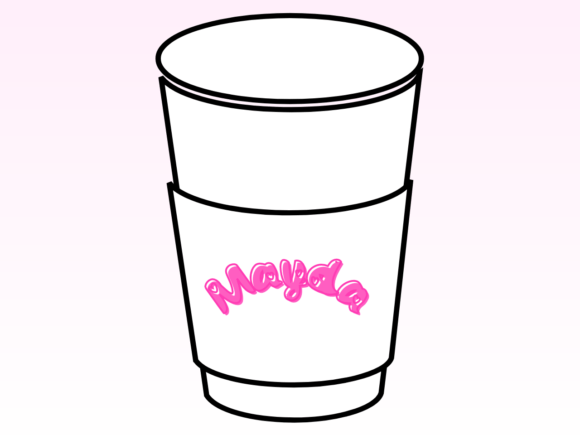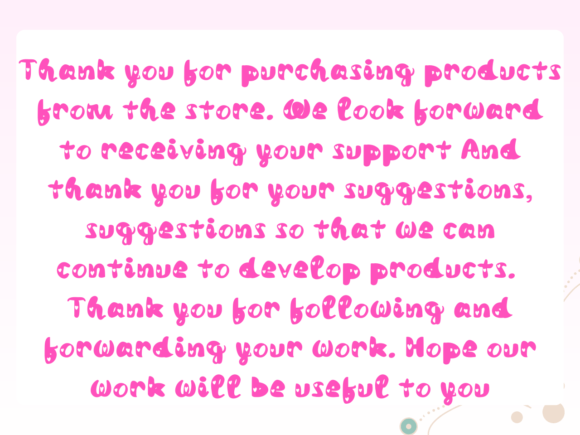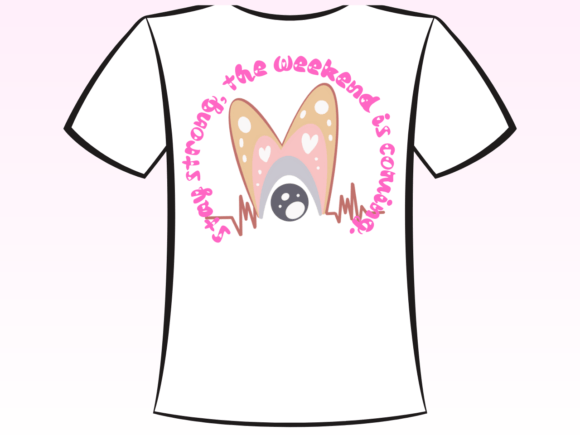
Introduction to Mayda Font
Character design work from the concept of handwriting by applying different brushes.
Make the font design work differently Having their own uniqueness this font design can be used Increase the prominence of your work, whether you use it in a letter.
Mayda Font offers exceptional quality and versatility, making it a valuable addition to your design toolkit. Whether you’re creating for personal projects or commercial use, Mayda Font delivers professional results.